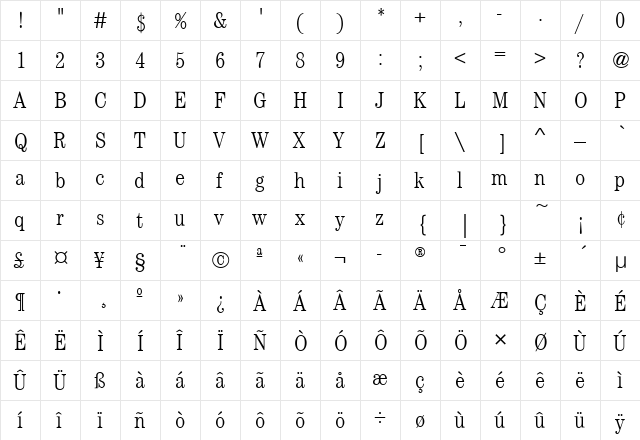
CenturyCdITC Light
Design Context for CenturyCdITC Typeface
CenturyCdITC offers clean, dependable letterforms without strong stylistic allegiance, making it a practical choice for designers who need flexibility. The delicate stroke weight brings airiness and refinement to layouts.